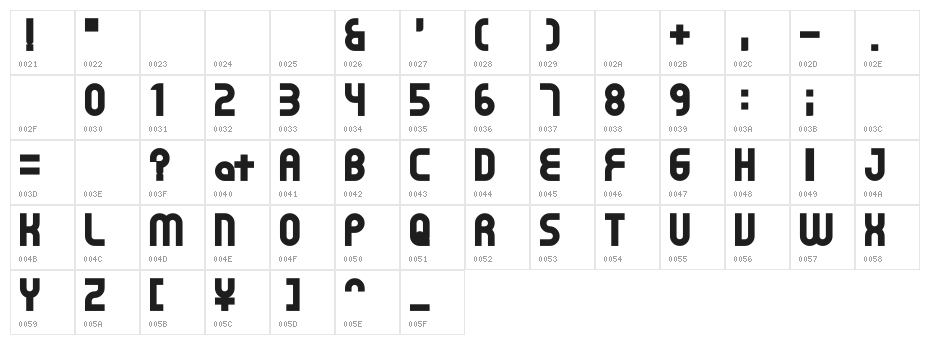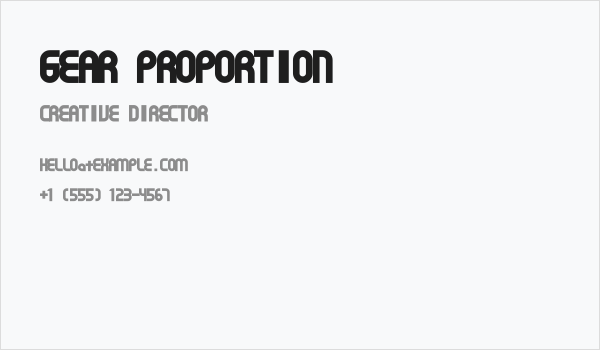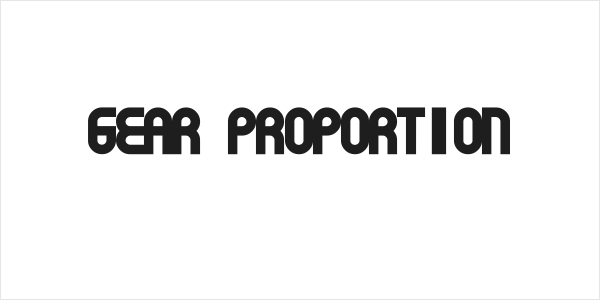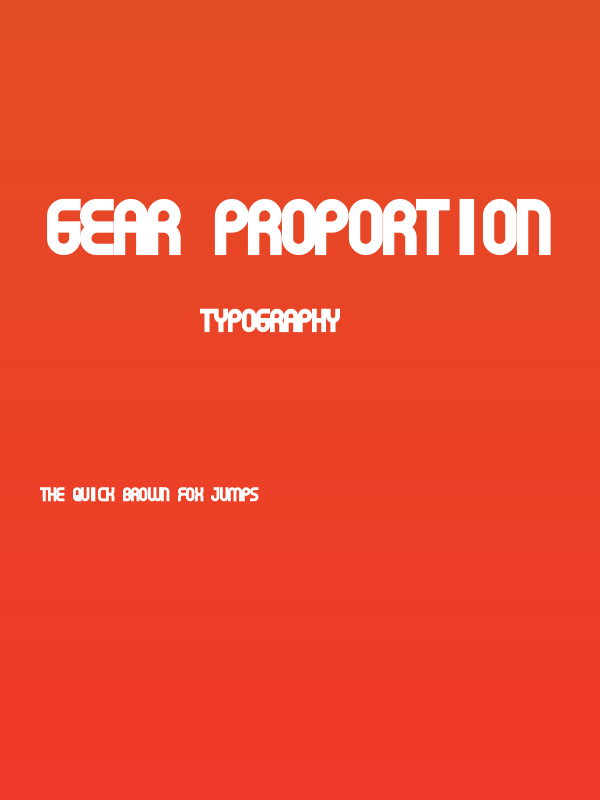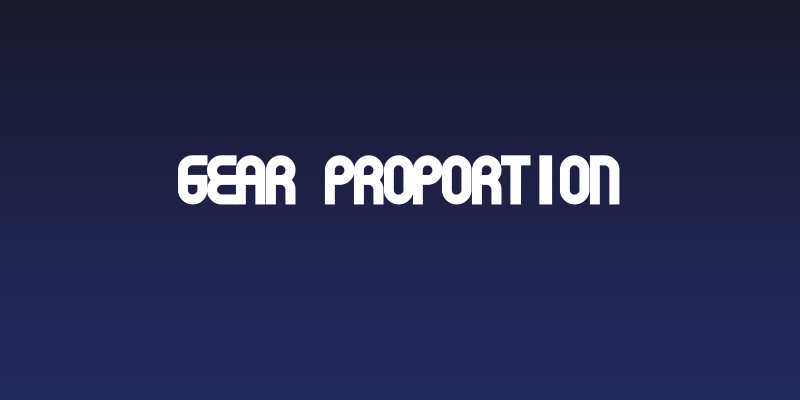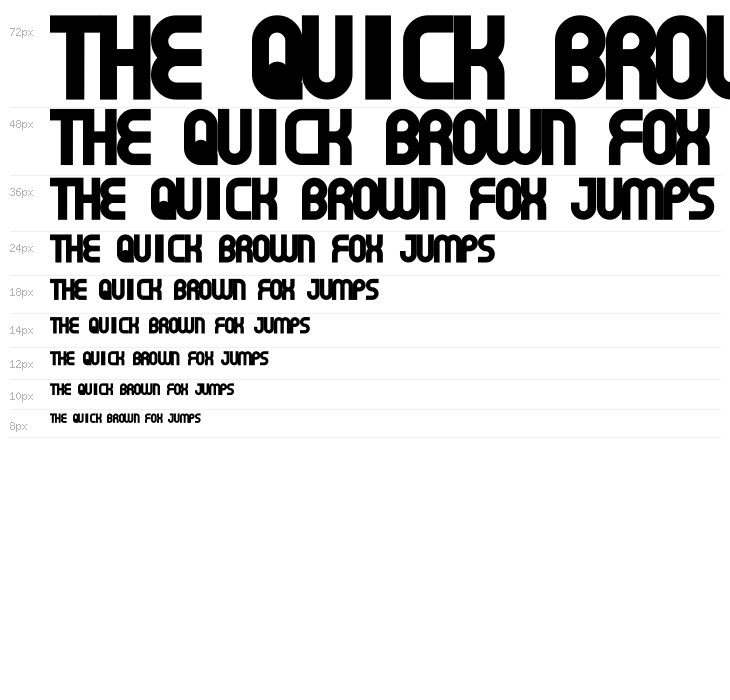
Gear Proportion Font
Gear Proportion Description
This font features a bold and geometric design with a modern aesthetic. The characters are constructed with thick, uniform strokes, creating a strong visual impact. The rounded edges and consistent stroke width give it a futuristic and industrial feel. The uppercase letters are particularly striking, with a blocky appearance that emphasizes their boldness. The numbers and special characters maintain the same design principles, ensuring a cohesive look across all glyphs. This font is ideal for projects that require a strong, modern, and impactful typeface.